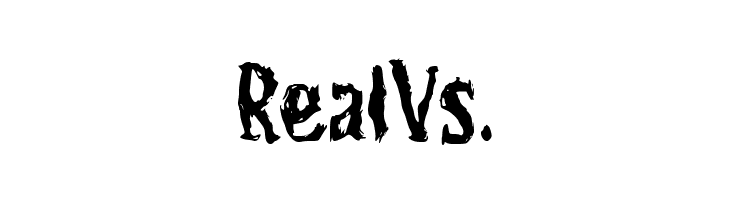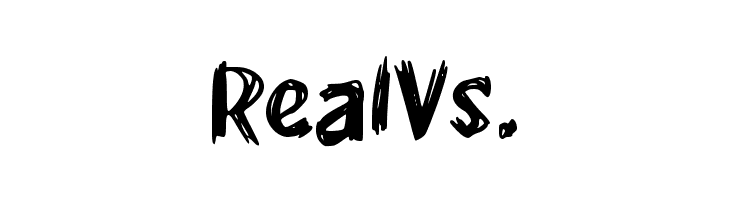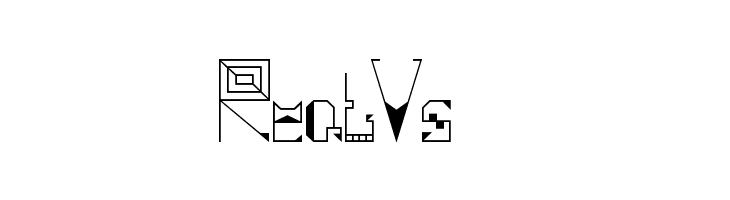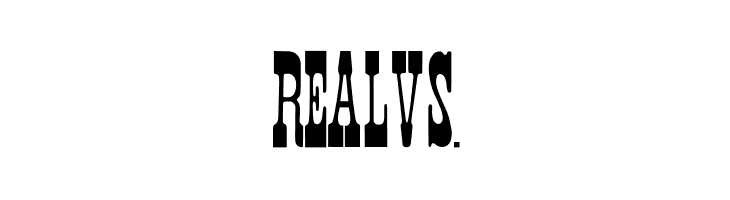
A decorative font featuring whimsical icons for fantasy-themed maps.
A bold, graffiti-inspired handwritten font with dynamic strokes.
A bold, 3D graffiti-style font with playful, dynamic outlines.
A bold, 3D italic font with a playful and modern style.
A playful, dripping font with a bold, melting appearance.
A bold, graffiti-inspired font with expressive, hand-drawn strokes.
A bold, italic script font with dynamic, flowing strokes.
A bold, brush-style font with a condensed and dynamic appearance.
A bold, condensed, and italic handwritten font with dynamic strokes.
A bold, expressive handwritten font with dynamic strokes and artistic flair.
A bold, expanded script font with an italic slant and dynamic style.
A bold, italicized font with a brush-like, handwritten style.
A bold, hand-drawn font with an energetic and expressive style.
A distressed, decorative font with jagged edges and a chaotic style.
A bold, decorative font with a double-line effect, perfect for vintage-inspired designs.
A bold, decorative font with a double-line outline and geometric structure.
A bold, expressive script font with fluid, interconnected strokes.
A playful, handwritten-style font with a casual and friendly appearance.
A whimsical and playful script font with flowing, cursive-like letters.
A playful, bold font with rounded, thick strokes and a hand-drawn feel.
A whimsical, eerie font with jagged edges and playful curls, perfect for Halloween themes.
A rustic, handwritten font with a brush-like texture and playful style.
A playful, handwritten font with a whimsical and dynamic style.
Playful handwritten script font.
A bold, decorative font with intricate patterns and vintage flair.
A bold, high-contrast serif font with a Western vintage style.
A bold, geometric font with a modern and assertive style.
A playful, casual font with smooth, rounded letterforms and a slightly slanted style.
A playful, handwritten font with irregular strokes and a casual vibe.
A bold, playful handwritten font with thick strokes and irregular shapes.